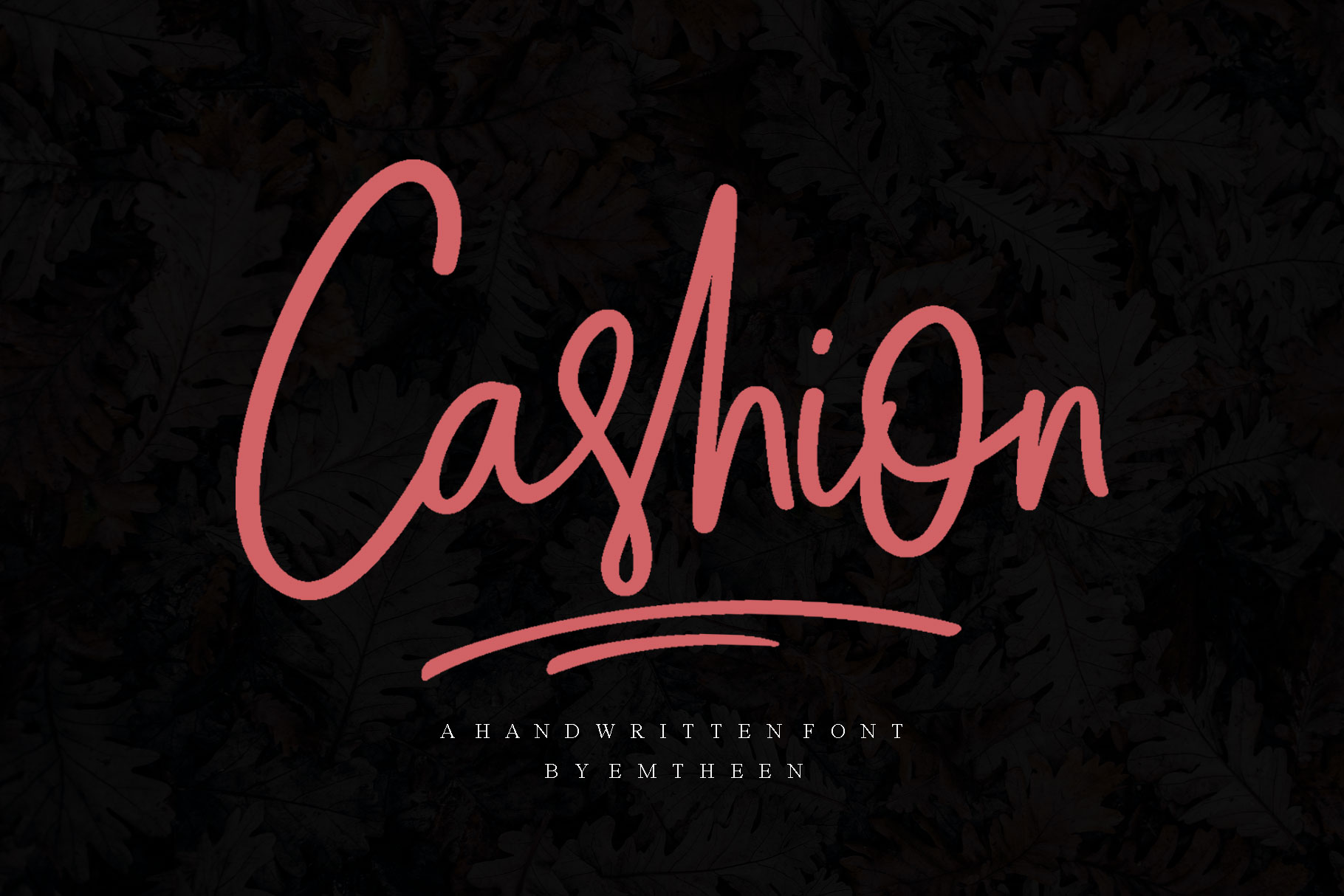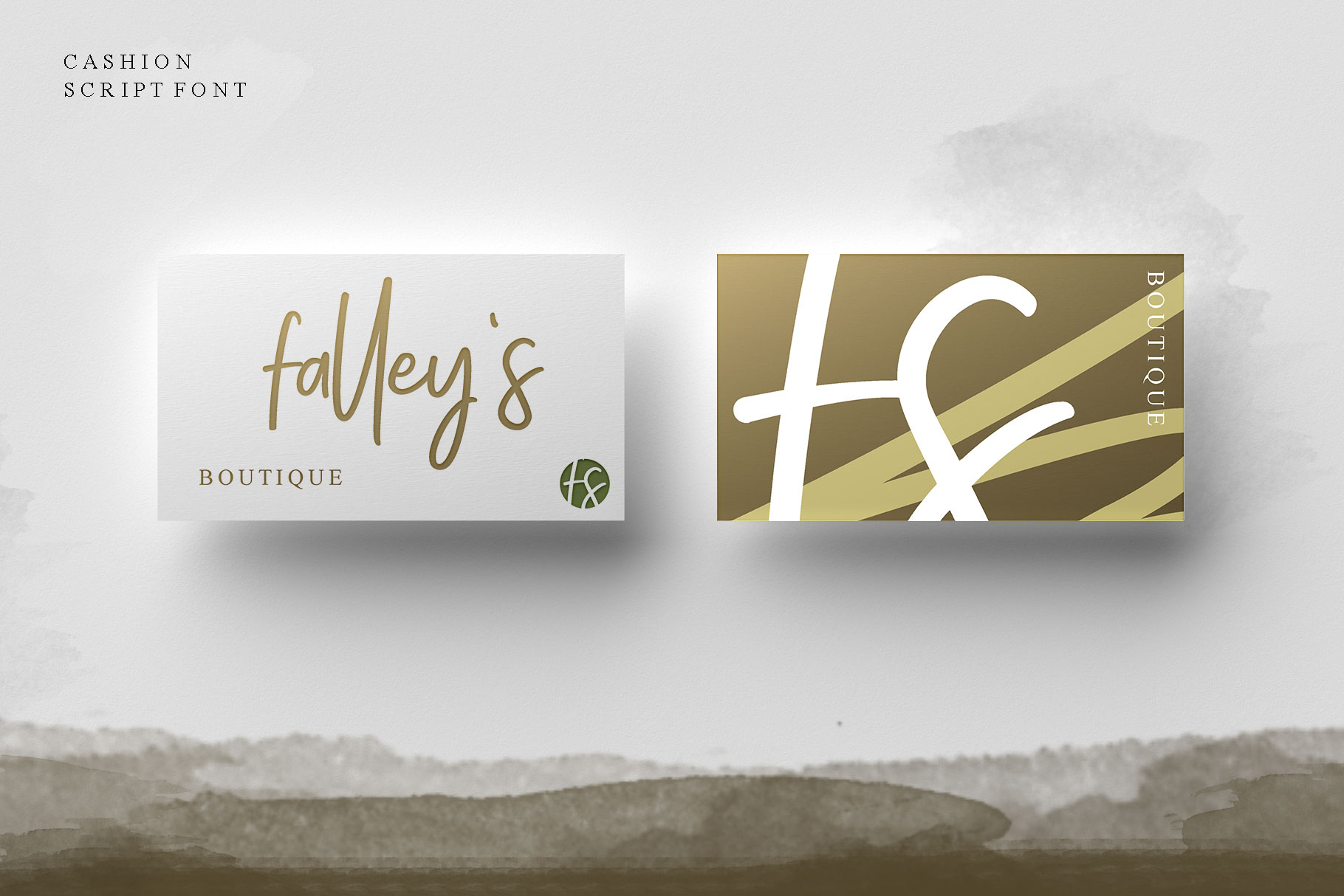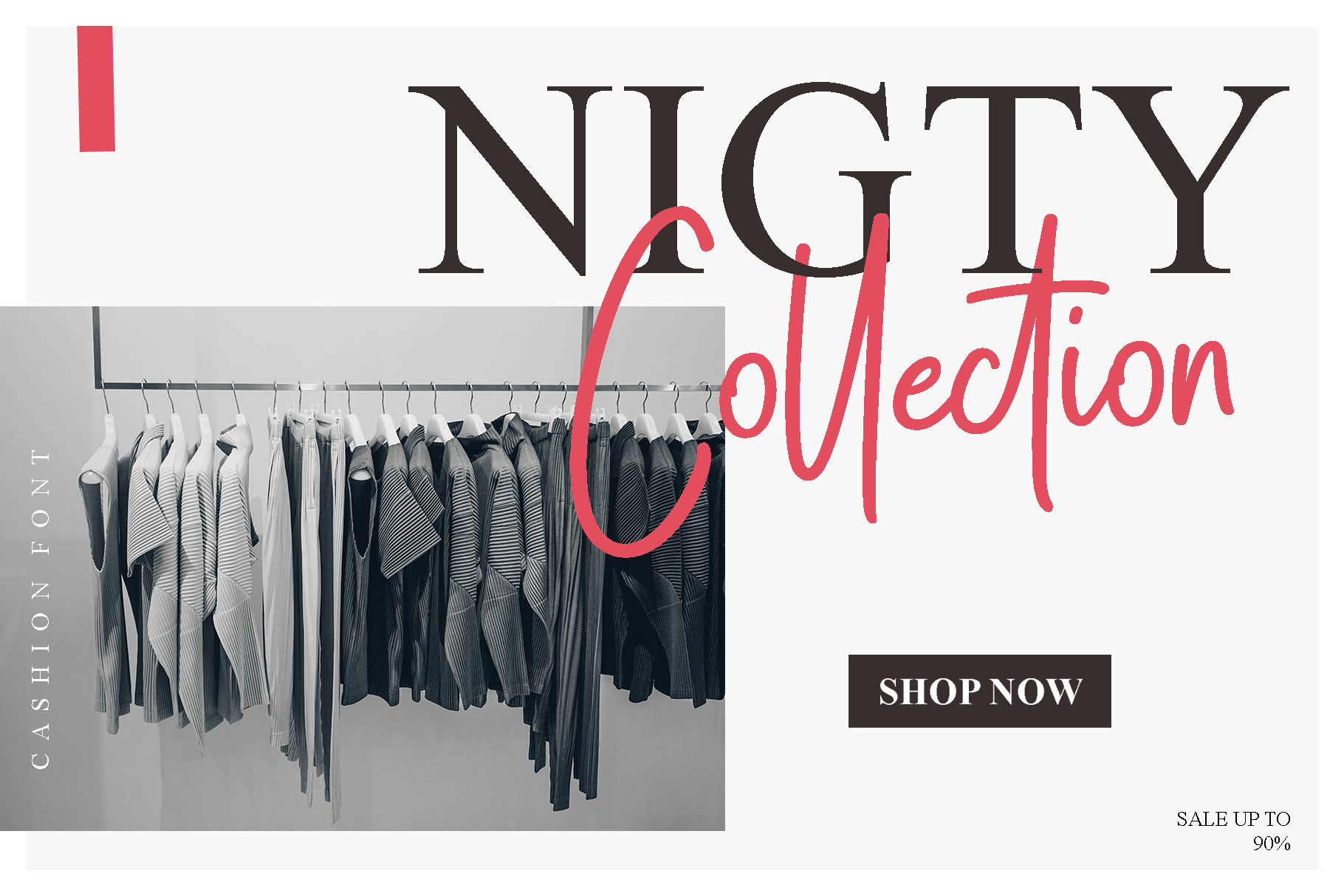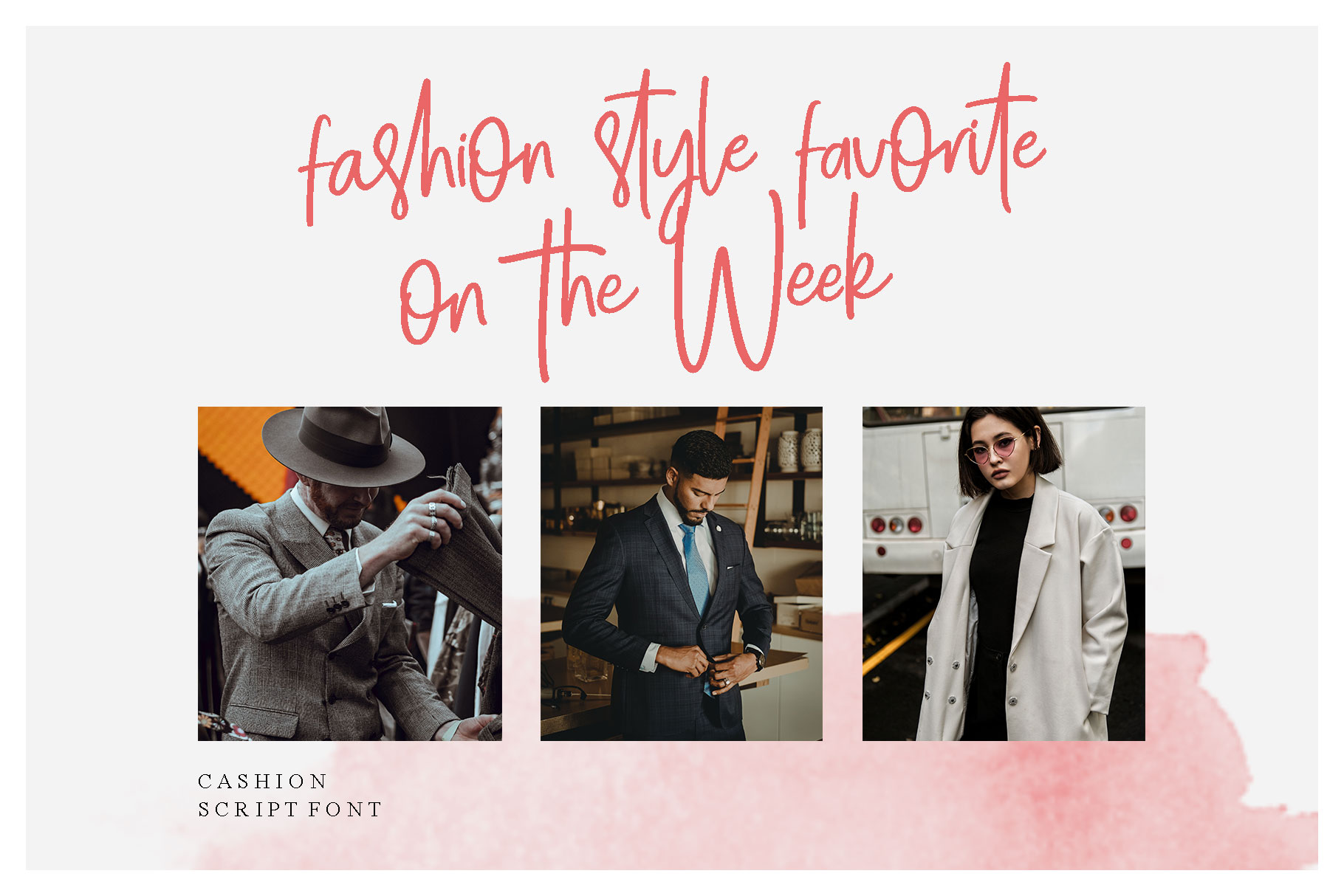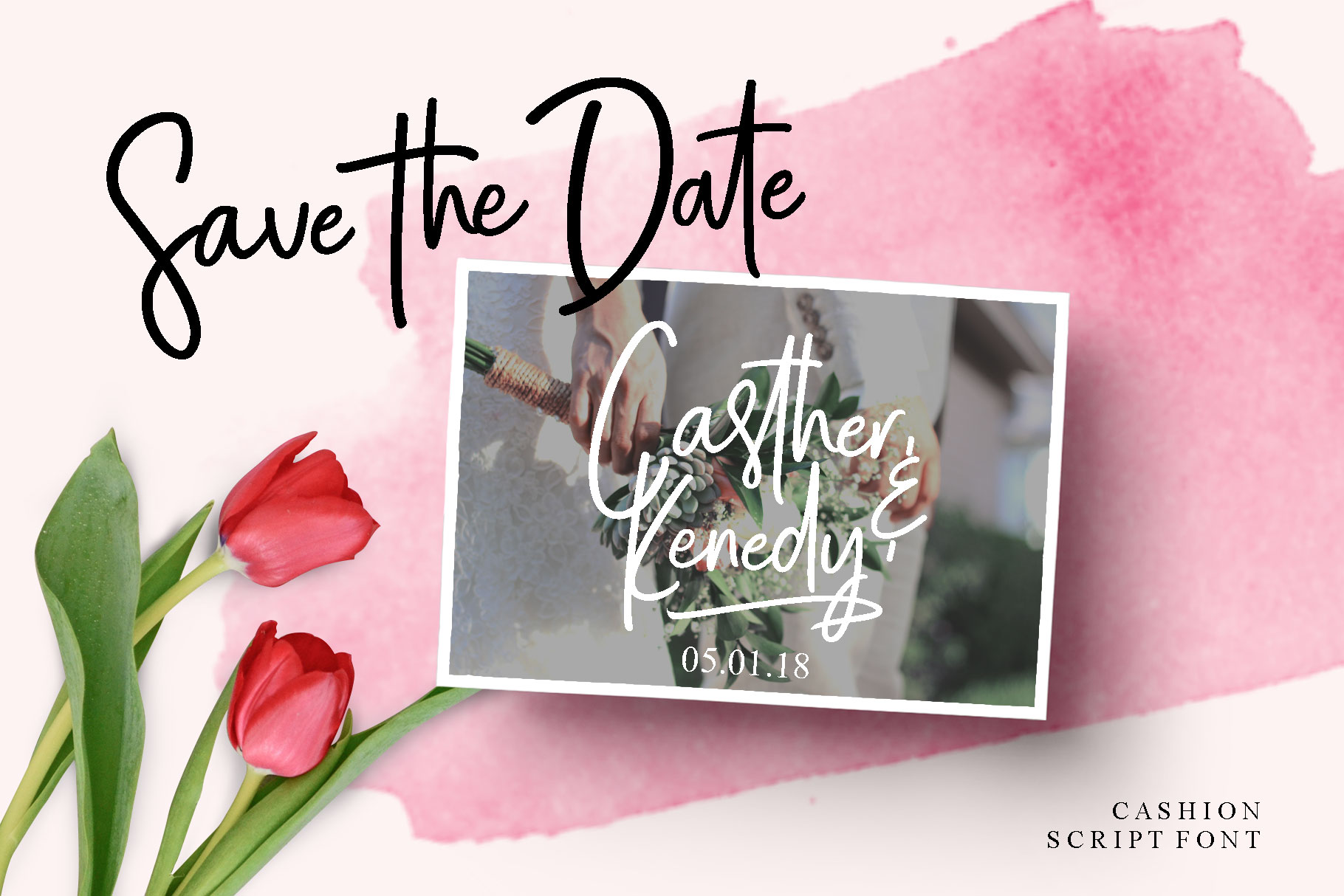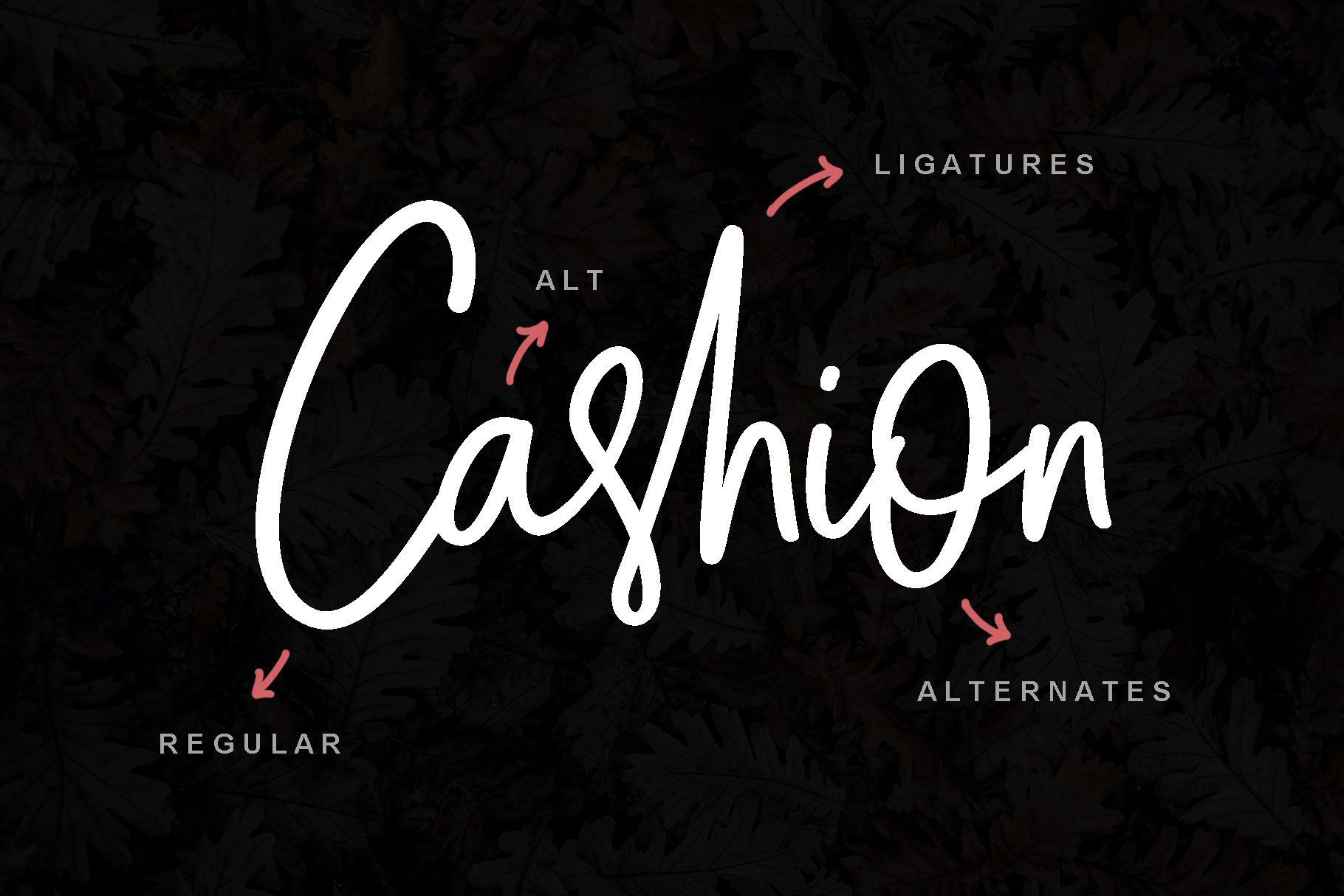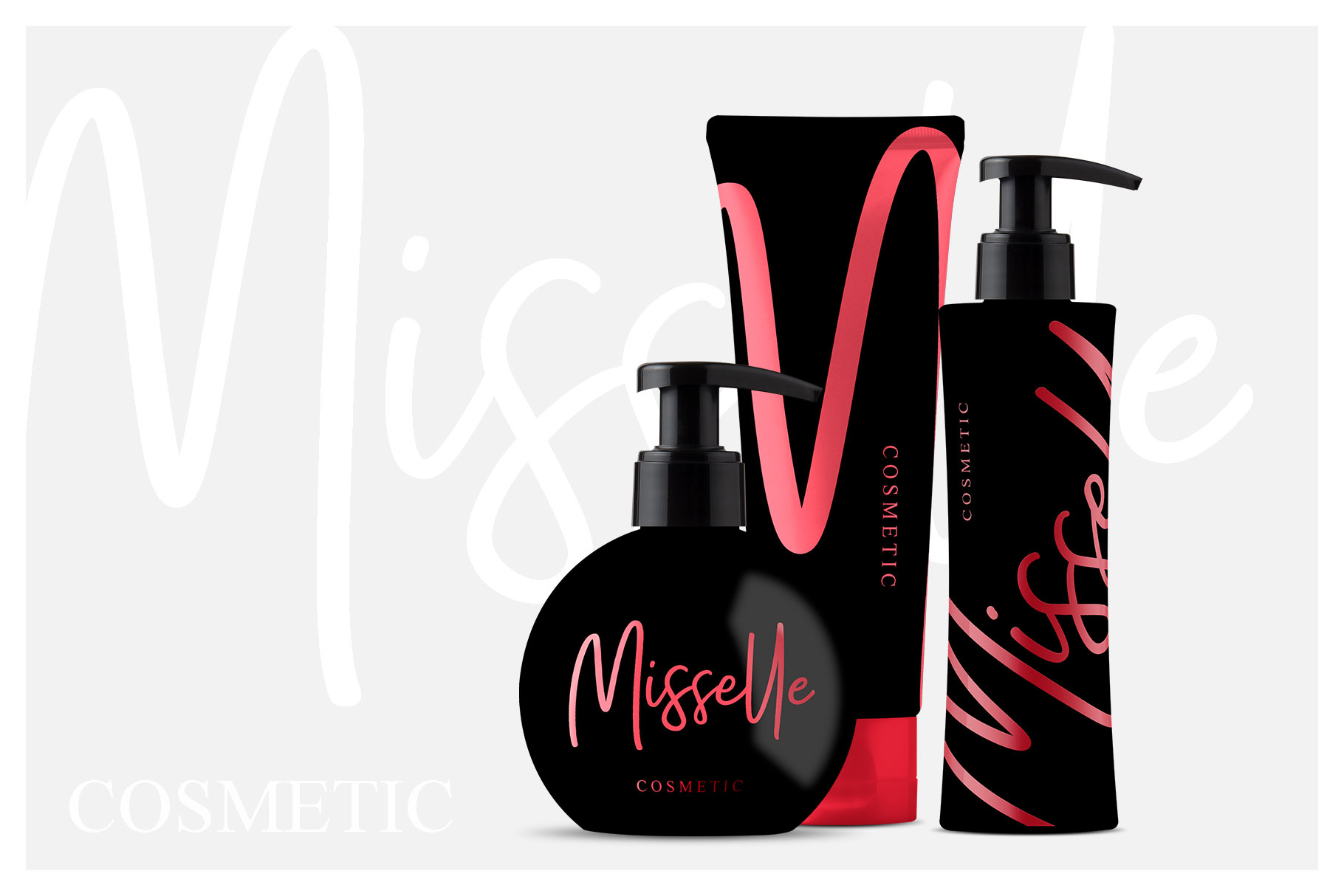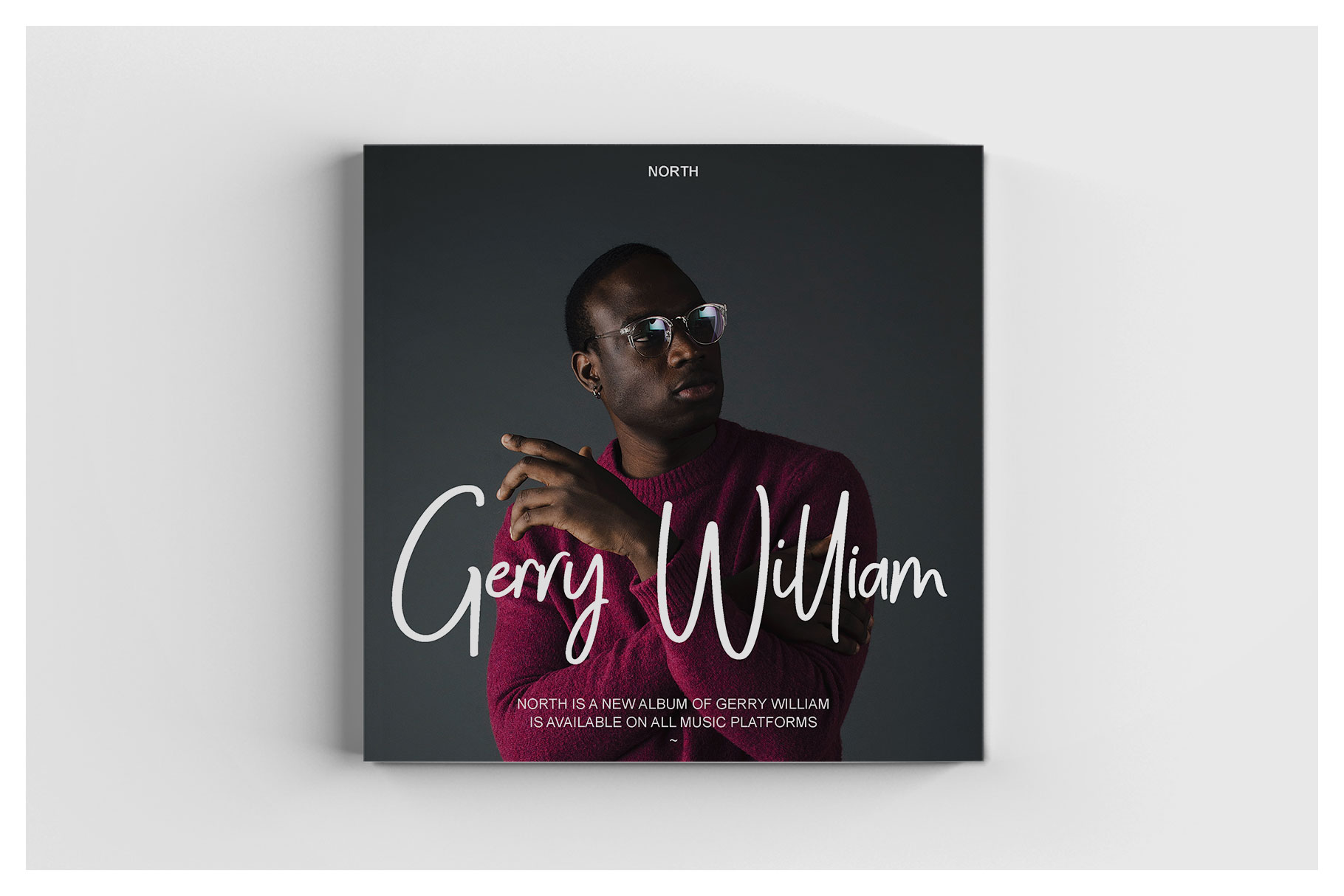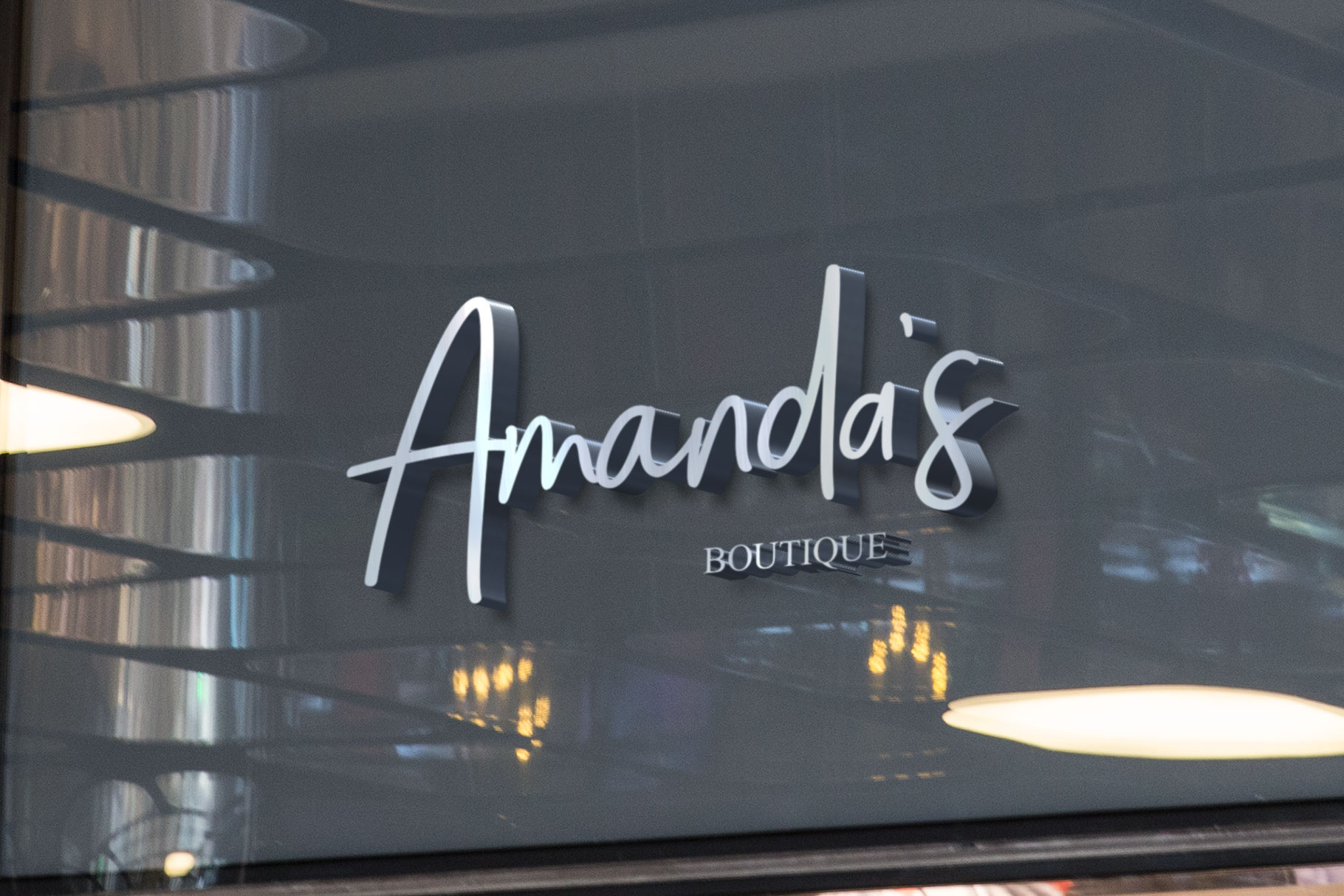
Cashion Font
About Cashion Font
Cashion Script is a handwritten font that contains 2 different styles. This font was made manually to give it authenticity and elegance, so it can be used in various media. Cashion excels as a font for themes in fashion and editorials because of the wide shape in each letter, giving it a relaxed yet sophisticated appeal.